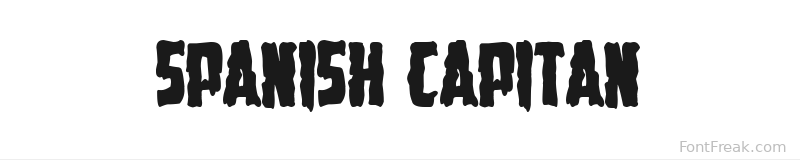
Spanish Capitan
The Spanish Capitan font by woodcutter Manero is a striking display typeface that captures the essence of rustic charm and cultural flair. This decorative font boasts bold, irregular strokes that evoke a sense of handcrafted artistry. The heavy weight of the letters, combined with their uneven, organic forms, creates a dynamic visual impact that is both engaging and memorable. The spacing is generous, allowing the unique shapes of each character to stand out individually, making it an excellent choice for attention-grabbing designs.
Spanish Capitan is particularly well-suited for a variety of creative projects. Its distinctive style makes it an ideal choice for wedding invitations, where it can convey a sense of elegance and celebration. Additionally, it works wonderfully for restaurant menus, adding a dash of personality that can enhance the dining experience. Movie posters are another perfect fit, as the font's boldness can help convey the theme and tone of a film effectively. Graphic designers will find it useful for branding projects that aim to establish a strong visual identity, while small business owners can utilize it for promotional materials that stand out in a crowded marketplace.
Targeted towards graphic designers, small business owners, and content creators, the Spanish Capitan font free download offers accessibility for anyone looking to elevate their design work with something unique. Its captivating style not only draws in the viewer but also communicates a sense of authenticity that resonates with various audiences. In a world flooded with generic typefaces, Spanish Capitan stands out as a true celebration of individuality and creativity, making it a fantastic addition to any designer's toolkit.